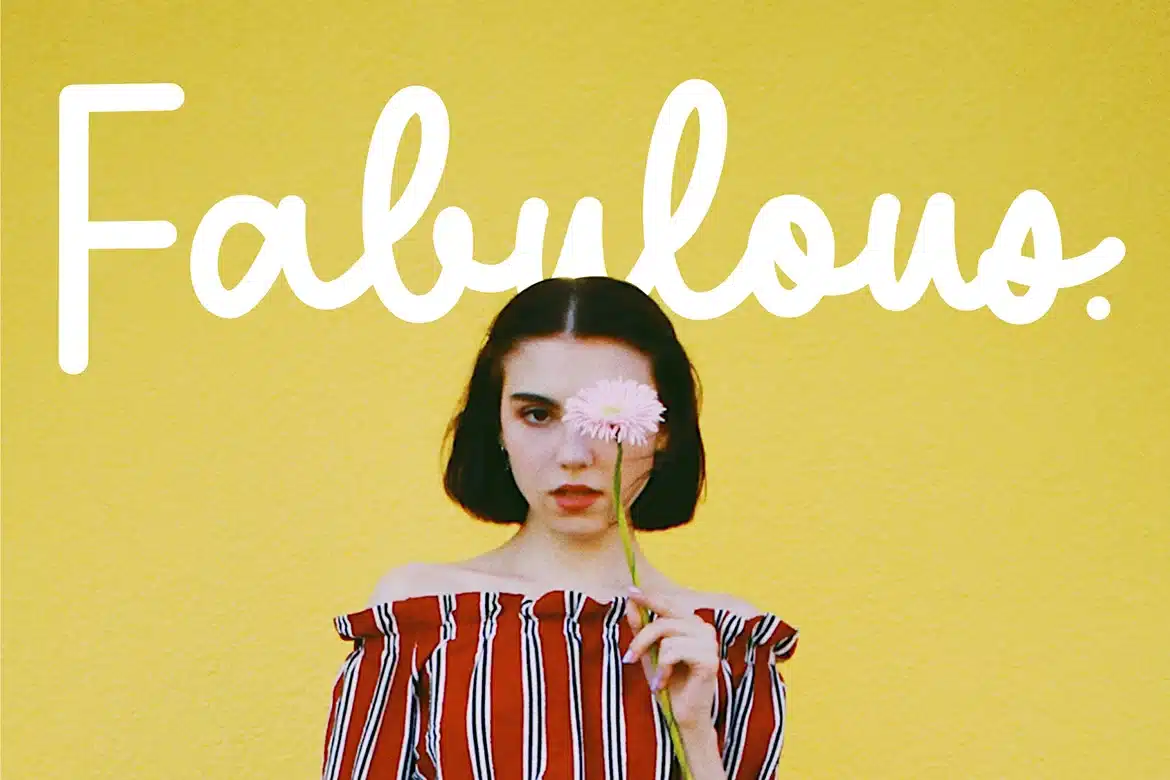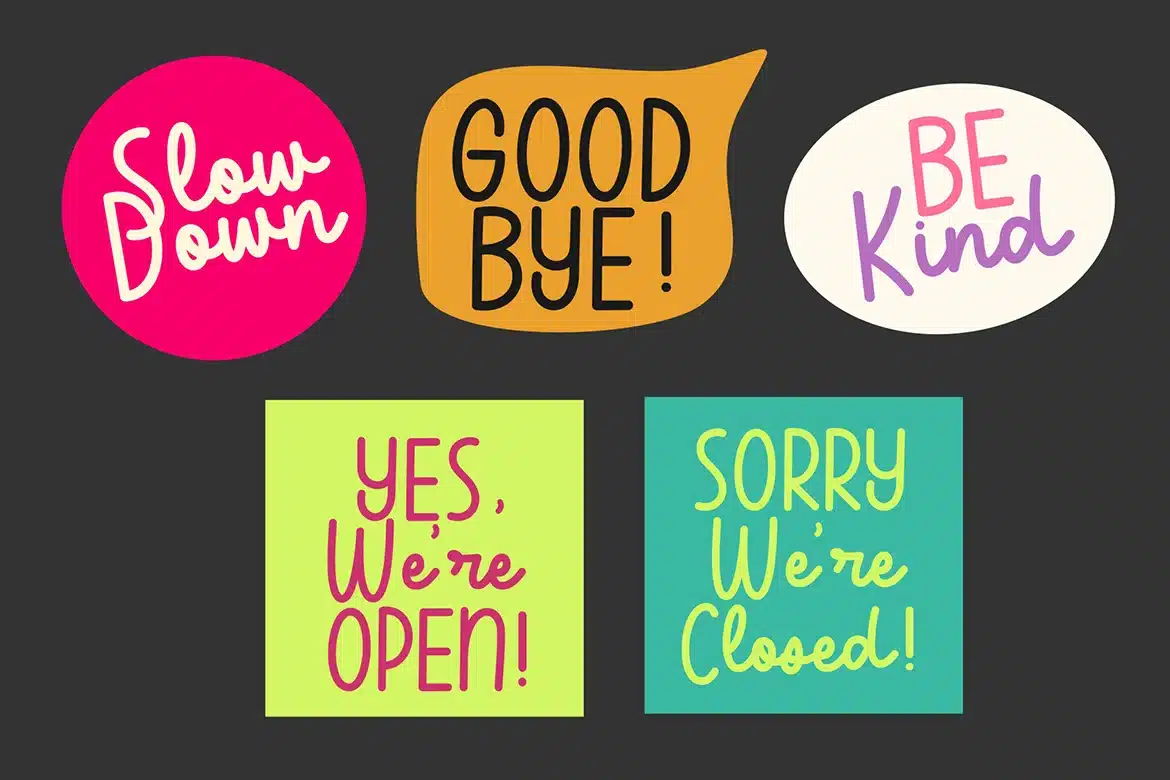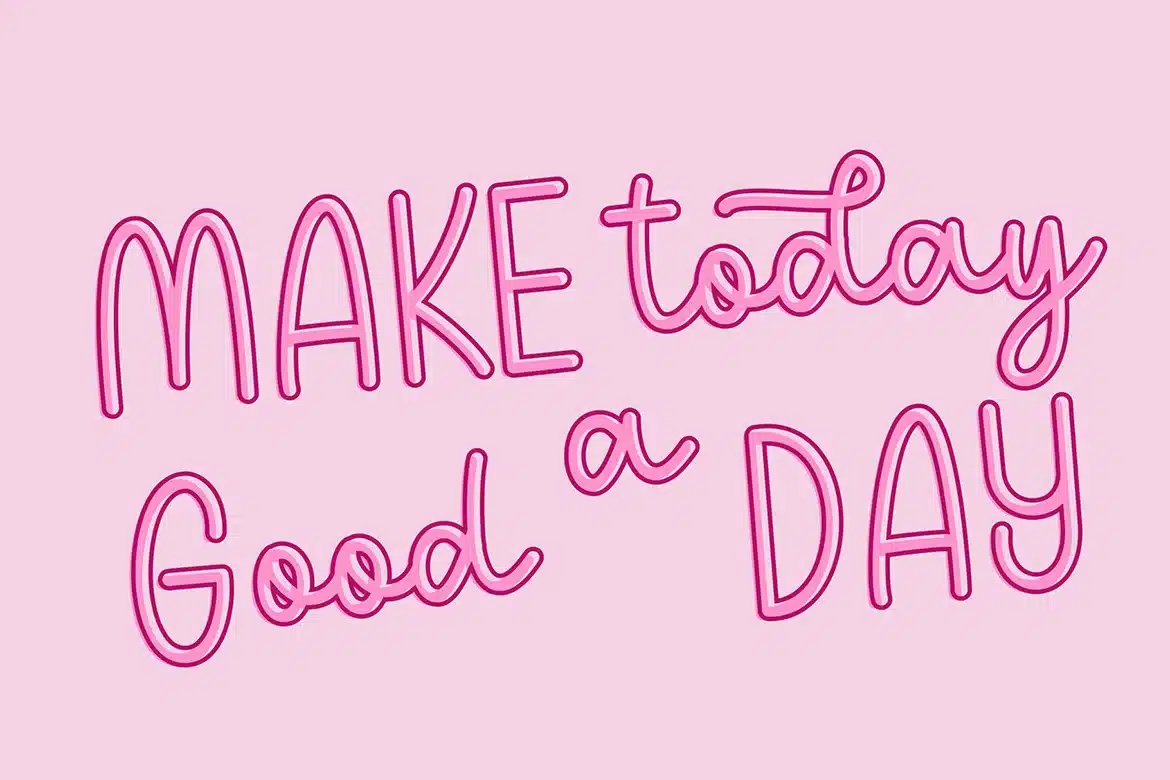
Flawless Beauty – Quirky Handwritten Font
Flawless Beauty is a quirky Handwritten script font with a simple style, perfect for crafting, branding, invitation, stationery, wedding designs, social media posts, advertisements, product packaging, product designs, label, Posters, photography, special events, or anything.
Font Features :
- numeric & Multilingual support
- Stylistic Alternates with Ss01